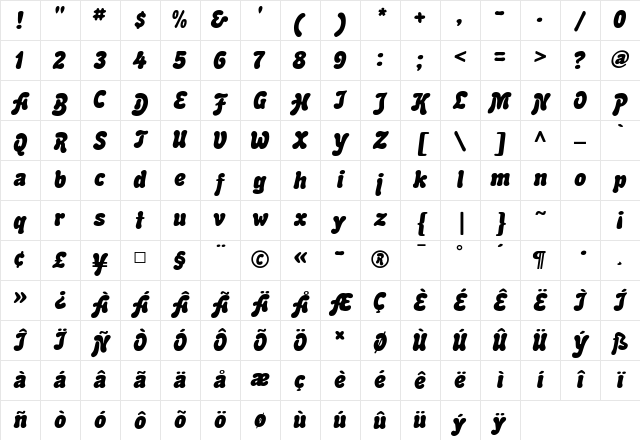
Advert Italic Free Font
Advert Italic
Design Context for Advert
Advert is a composed and adaptable typeface that performs quietly and consistently across a wide range of design contexts. The slanted form adds forward momentum and visual energy.
Pro Tip: Use Advert for emphasis, pull quotes, and subheadings where its slanted energy can add rhythm to the layout.